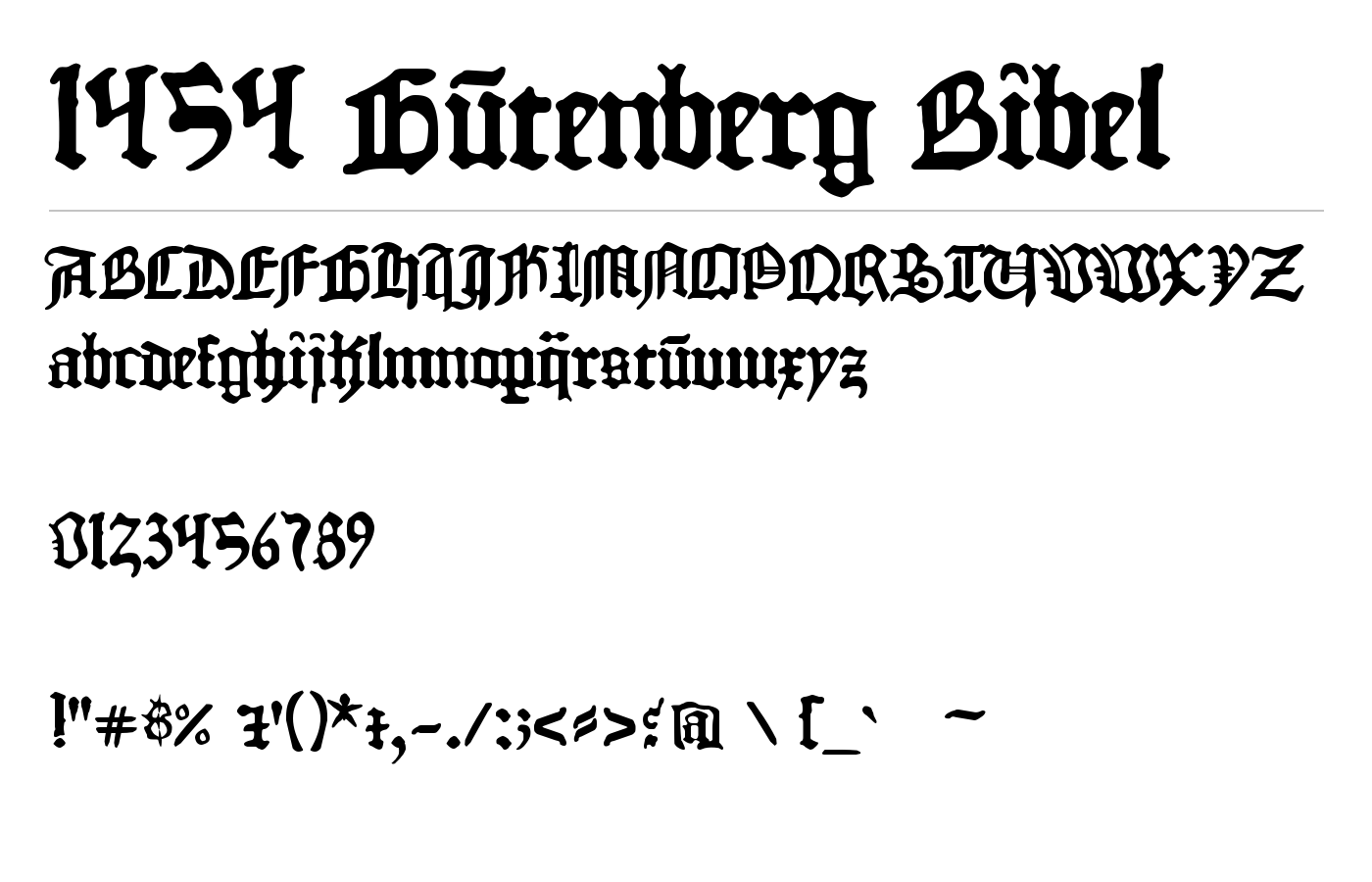
1454 Gutenberg Bibel is a blackletter serif font inspired by historical Gutenberg Bible scripts, featuring strong, bold strokes with high contrast and intricate, angular letterforms. Its ornate and traditional style evokes a medieval, vintage feel, ideal for projects aiming to convey a sense of history, formality, or classical craftsmanship. This font works best in headlines, logos, or decorative uses where a dramatic, timeless impression is desired.
1454 Gutenberg Bibel Font
About 1454 Gutenberg Bibel Font
| Font family | 1454 Gutenberg Bibel Font |
| Designer | John H. Schmidt, III, M.D. |